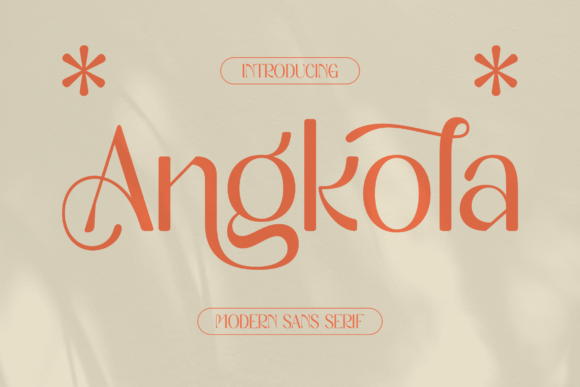
Dive into a world of captivating typography with Angkola Font, the epitome of modern elegance. This enchanting serif font, meticulously crafted by the artisans at Storytype Studio, is a visual masterpiece that will elevate your designs to new heights of sophistication.
Angkola's graceful curves and delicate serifs exude an aura of timeless beauty, making it the perfect choice for creating logos that exude elegance and distinction. Whether you're a fashion brand seeking to leave a lasting impression or a magazine designer aiming for a touch of luxury, Angkola will effortlessly elevate your creations.
Harness the power of Angkola to craft apparel designs that speak of effortless style and sophistication. Its refined letterforms will seamlessly blend with your designs, adding a touch of understated elegance that will make your creations stand out from the crowd.
Discover the versatility of Angkola in the world of lettering and quotes. Its ability to effortlessly convey emotions and messages makes it the perfect choice for creating impactful visuals that resonate with your audience. Use Angkola to craft beautiful quotes that inspire, motivate, and leave a lasting impression.
With Angkola, the possibilities are endless. Its timeless beauty and versatility make it an indispensable tool for designers seeking to create truly exceptional work. Embrace the grace and elegance of Angkola and watch your designs transform into captivating masterpieces that leave a lasting impact.